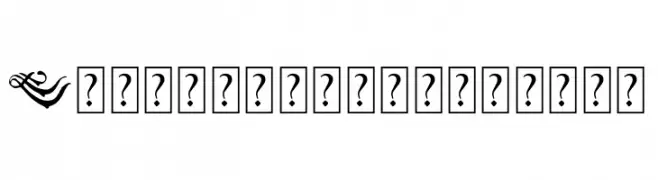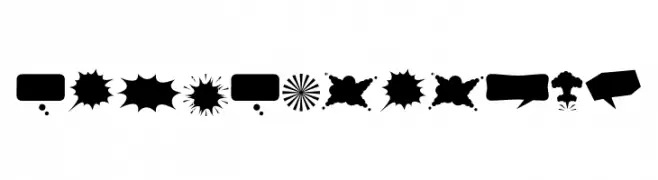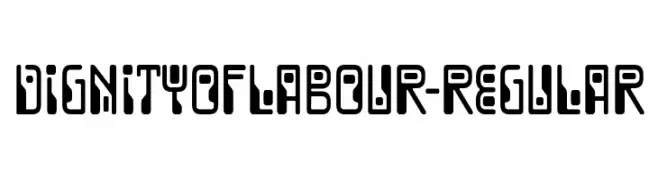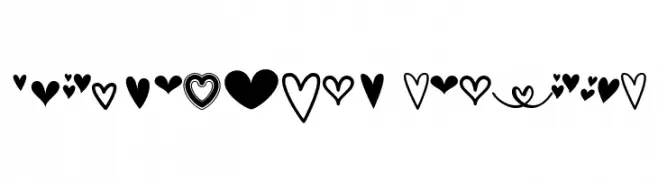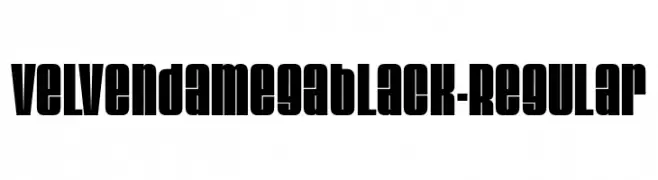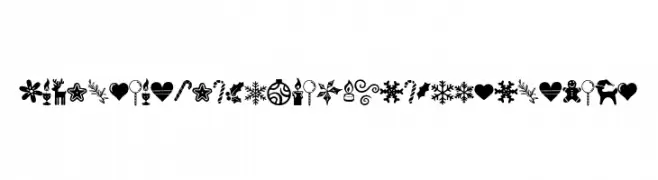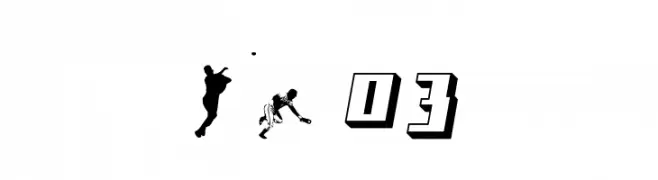
A bold, geometric font with a strong outlined style, perfect for impactful designs.
A bold, geometric font with thick strokes and tight spacing.
A bold, geometric font with a modern and futuristic style.
A diverse collection of ampersand designs ranging from modern to vintage styles.
A collection of intricate ornamental and decorative elements.
A playful collection of heart symbols and a lip print, perfect for romantic designs.
A bold, high-contrast collection of comic-style symbols for dynamic visual storytelling.
A festive collection of winter-themed symbols and icons in a playful, decorative style.
A whimsical collection of Christmas-themed symbols perfect for festive projects.
A dynamic collection of sports silhouettes and bold, 3D-styled numbers.